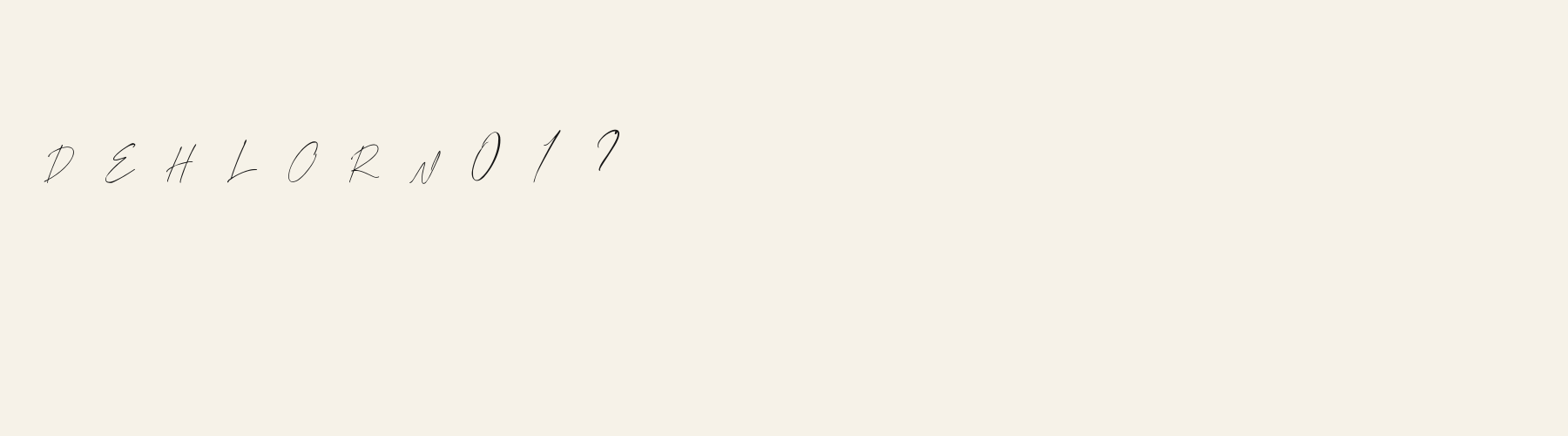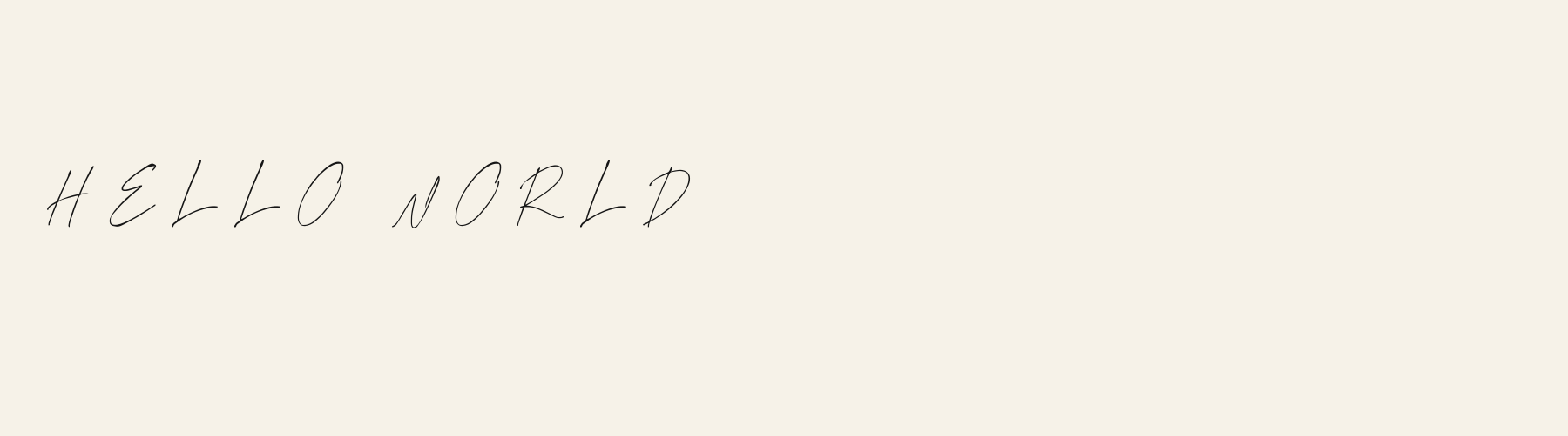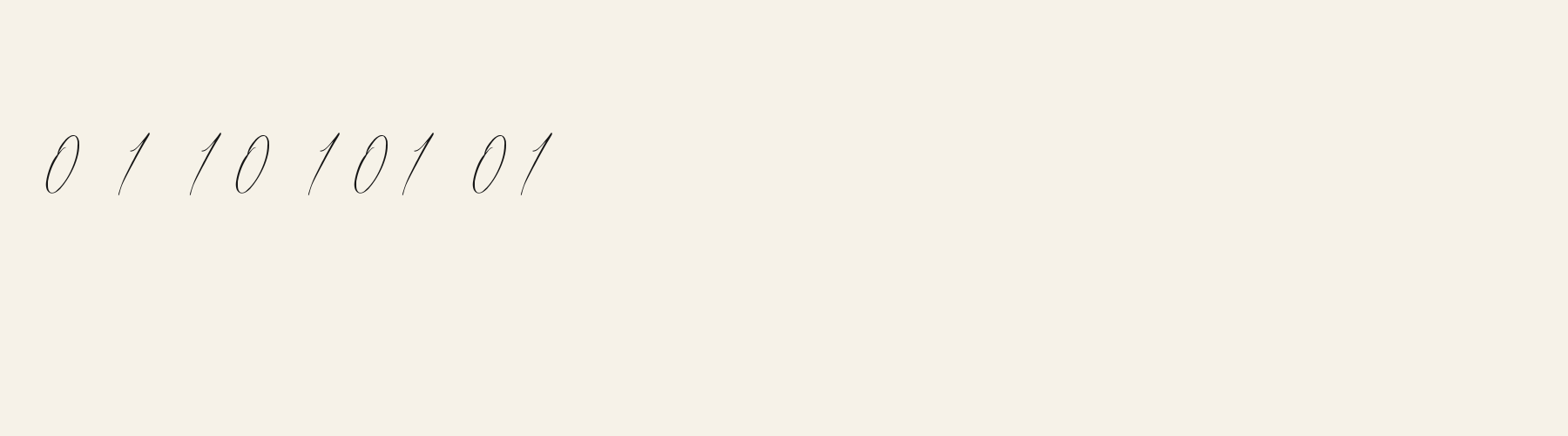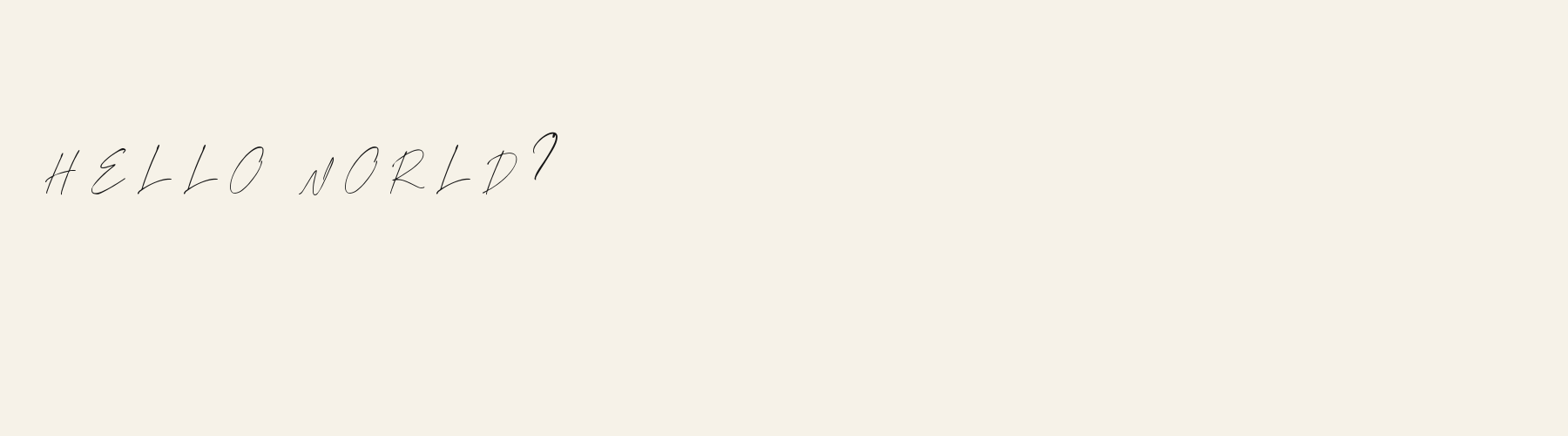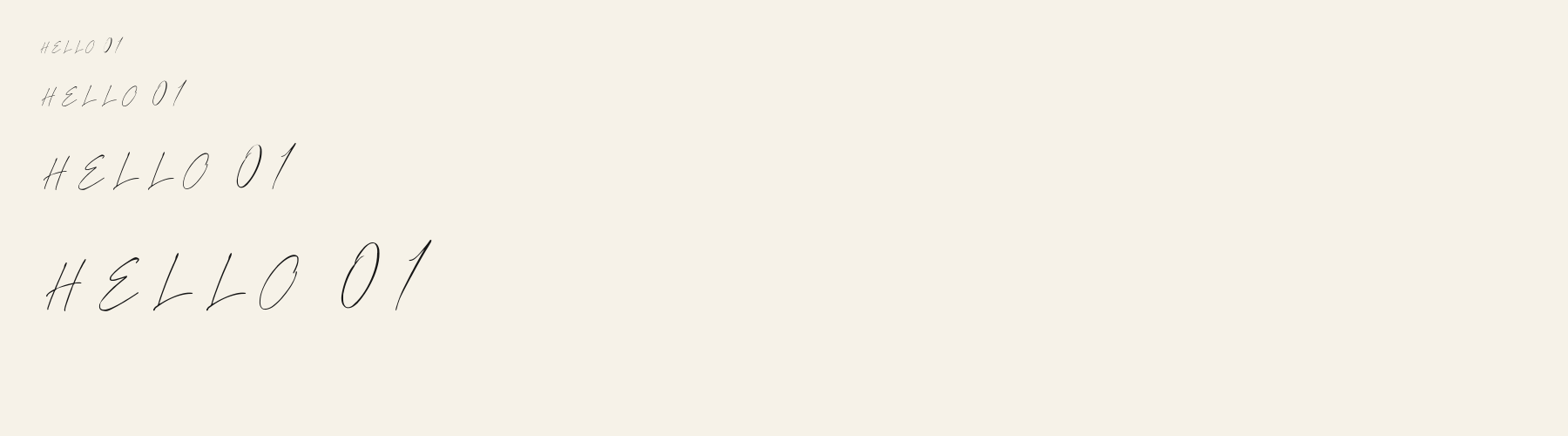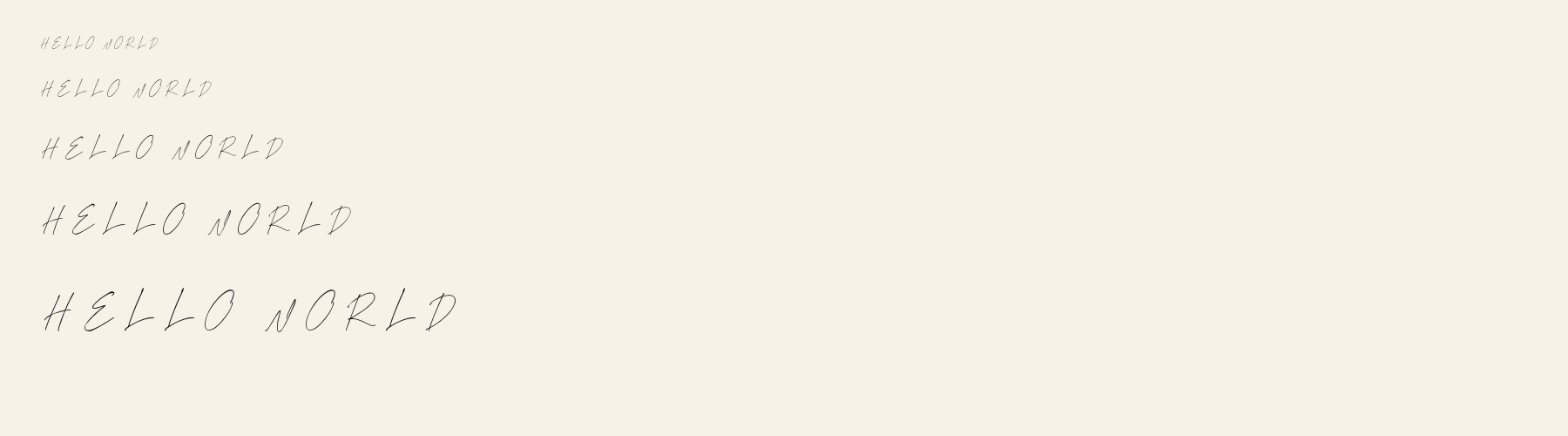
Script Signature Thin Spacious Oval Pen Font
Script Signature Thin combines a strong rightward slant with fine, mostly even strokes and generous open spaces.
Spacious Oval Pen Letterforms
Script Signature Thin combines a strong rightward slant with fine, mostly even strokes and generous open spaces. The H has long leaning stems crossed by a low, rising bar that extends beyond the left stem. Each L drops almost straight before sweeping into a shallow rightward foot, giving repeated letters a rolling rhythm. The R pairs a broad upper bowl with a loose, outward-curving leg. Slight changes in stroke weight soften the lines without creating a heavy downstroke. The separated capitals and restrained flourishes give short wording an intimate, lightly penned mood.
Inspect repeated Ls, the H crossbar and the R's extended leg in your actual wording. Compare smaller and larger previews for stroke loss and awkward gaps. These specimens show Latin capitals; check lowercase separately and verify character availability for other scripts.
Try this face for a short heading or name, with a plain sans serif handling dates, descriptions and labels. Its fine strokes and sweeping capital feet benefit from supporting text with steadier shapes and a more compact rhythm.
Script Signature Thin: letterforms and layout
H
L
Same font, different settingsHELLO WORLD
Compare smaller and larger previews to check whether the fine strokes remain distinct. Watch the low H crossbar and shallow L feet, whose delicate curves carry much of the phrase's handwritten character.
Same wording · 40pxHELLO WORLD
In this uppercase phrase, Script Signature Thin has spare pen strokes, straight slanted L stems and long, shallow feet. Its open construction gives the words a loose, lightly written rhythm.
Executive Sign gives the same uppercase phrase curled L forms and parallel interior strokes within several capitals. These extra lines and rounded flourishes create a more ornamental, calligraphic rhythm.
Script Signature Thin font in use
WITH LOVE
Card or invitation. Leaning capitals and delicate strokes give invitation wording a personal tone, while the long feet add movement across open space. ROSE OIL
Product label. Fine pen lines and spacious capital shapes lend a light touch to a short product name on an uncluttered label. HELLO WORLD
Social post. The sweeping L feet and open R bowl bring a handwritten gesture to a brief social announcement.
The scenes are illustrations drawn on this page with Script Signature Thin itself, not client work.
About Script Signature Thin
The x-height is a compact 40.6% of the cap height, below the 48.5% median for script fonts, the lowest of all 54 script fonts. Ascenders on b, d, h, k and l rise 10.4% above the capitals, and descenders on g, j, p, q and y drop 49.5% of the cap height below the baseline, shallower than 31 of the 53 other script fonts. It sets wide: an average lowercase letter, spacing included, is 82.3% as wide as the capitals are tall (an average capital, 79.4%), 28.4% more than the median for script fonts, so the same words take a longer line. The o is wider than it is tall, 2.14 to 1, and W is the widest capital, at 1.21 times the width of H. The O stops 4% of the cap height short of H and stands 7.1% above the baseline.
Ink covers 7.1% of each lowercase letter's box (its advance width by the cap height), the lightest of all 54 script fonts.
Its 95 characters include 52 Latin letters, plus 43 figures, punctuation marks and symbols; there are no accented Latin letters beyond A to Z. The word space measures 35% of the cap height, and the blank space either side of a lowercase letter takes up 3.8% of its width. The font carries no kerning, so spacing comes from each letter’s own side bearings. The figures have different widths, so columns of numbers set in Script Signature Thin will not line up exactly.
Measured from the version 0.3.0 font file. Comparisons are with the 376 published library fonts measured on November 8, 2026, 54 of them script fonts.
- Structure
- Right-slanted narrow letters with long entry and exit strokes and open lowercase forms
- Fine monoline pen with subtle pressure changes and no heavy marker texture
- Signature names, wedding headings, premium packaging and social bylines
- What fonts pair well with Script Signature Thin?
- Atrium Sans (sans serif), Ion Velvet Grotesk (sans serif) and Herald Nib Roman (serif) are drawn on a different letter structure, so Script Signature Thin can carry the headings while one of them sets the text. Each has its own page with a type tester for trying the pair.